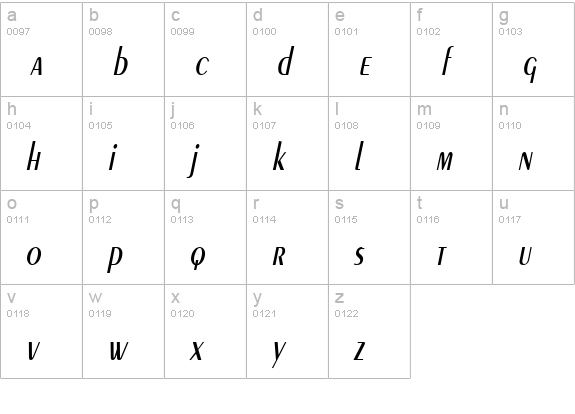
Pare Condensed Italic is a distinctive, condensed-width, italic variant in the Pare typeface family \xE2\x80\x94 well suited to design and typography projects.
Pare Condensed Italic font is a stunning typeface that exudes elegance and sophistication. With its sleek and slender design, this font is perfect for adding a touch of modernity to any project. The italicized form adds a sense of movement and grace to the letters, making them appear dynamic and eye-catching. The beauty of Pare Condensed Italic font lies in its versatility. Whether you're designing a logo, crafting a headline, or creating a stylish invitation, this font will effortlessly elevate your design to new heights. Its condensed nature allows for efficient use of space, making it ideal for projects that require a compact yet impactful typographic solution. One of the best things about Pare Condensed Italic font is that it is available for free download at FontsMarket.com. This means that you can add this exceptional font to your collection without breaking the bank. With just a few clicks, you can have access to this remarkable typeface and start incorporating it into your designs. Don't miss out on the opportunity to enhance your creative endeavors with Pare Condensed Italic font. Its timeless appeal, combined with its freely available nature, makes it a must-have for designers, artists, and typographers alike. Download Pare Condensed Italic font today and experience the power of elegant typography at your fingertips.